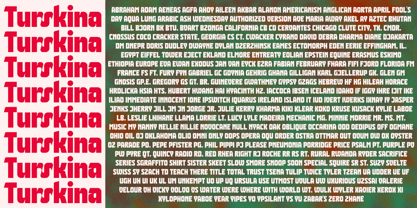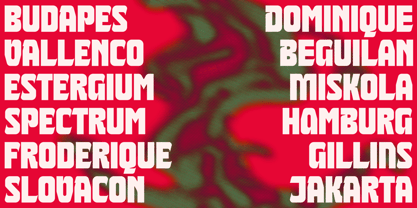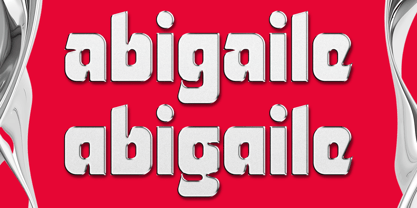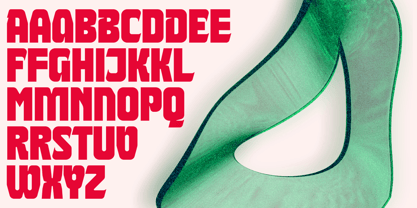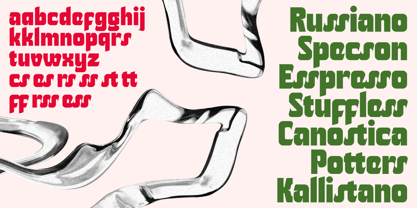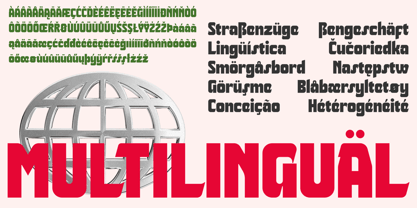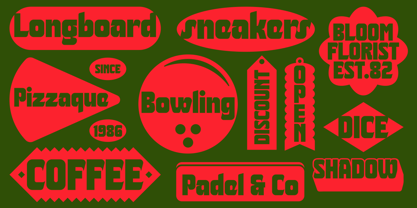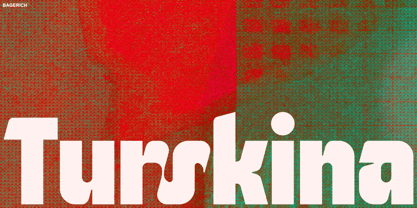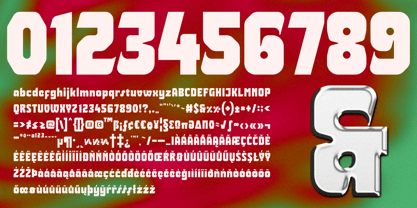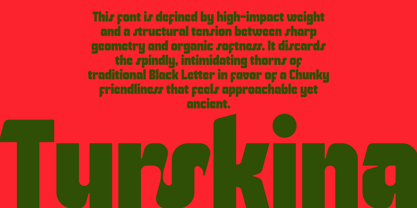
Turskina
The Turskina Font Family was designed by Reza Rasenda and published by Zealab Fonts Division. Turskina contains 1 styles. More about this family
TURSKINA is a high-contrast blend of "Old World" authority and "New World" precision. It’s designed for impact, stripping away the fussiness of traditional calligraphy while retaining the commanding presence of a royal decree. TURSKINA is unapologetically bold and chunky, featuring thick stems that provide a heavy "ink-trapped" feel. It carries the visual weight of a stone-carved inscription, ensuring that every character feels like a solid architectural element rather than just a letter. The verticality and "blackletter" DNA are present in the narrow apertures and occasional sharp spurs, mimicking the shields and banners of the 14th century. Imagine a gothic cathedral reimagined by a Silicon Valley robotics firm—heavy, protective, and impeccably polished. This font includes ligatures, alternates and multilingual characters.